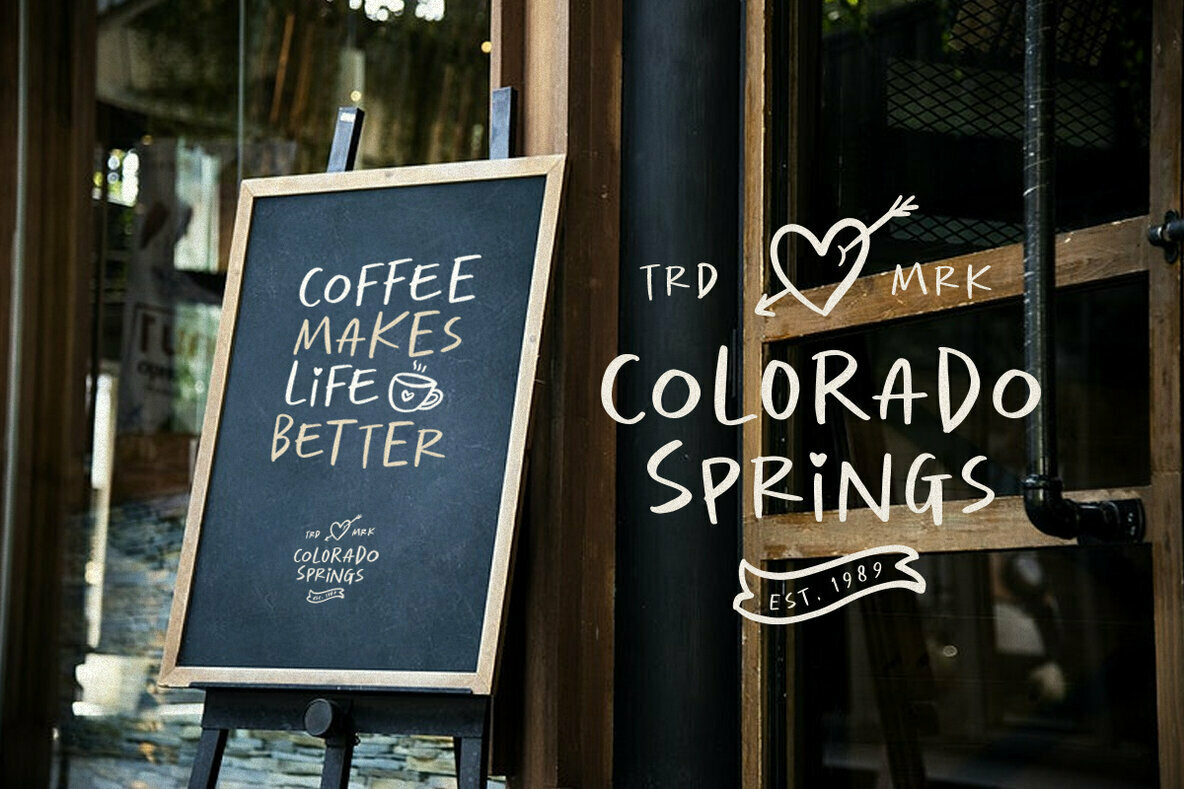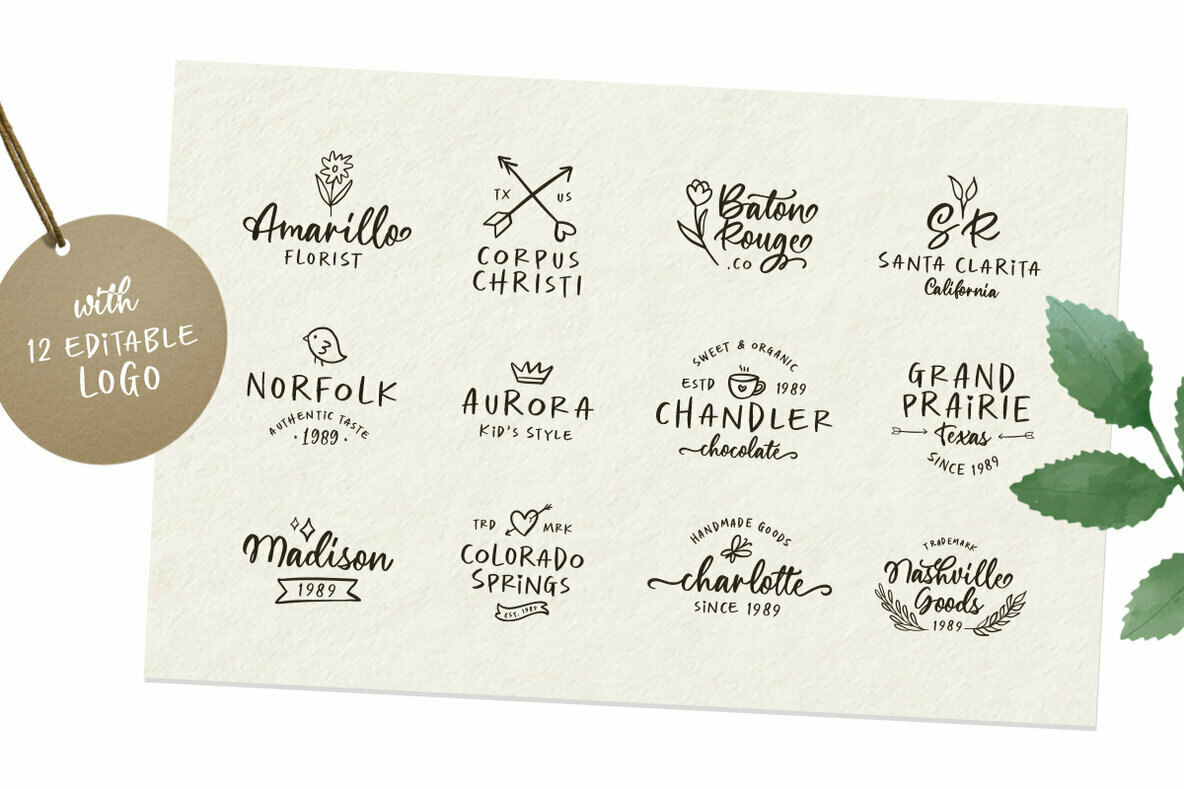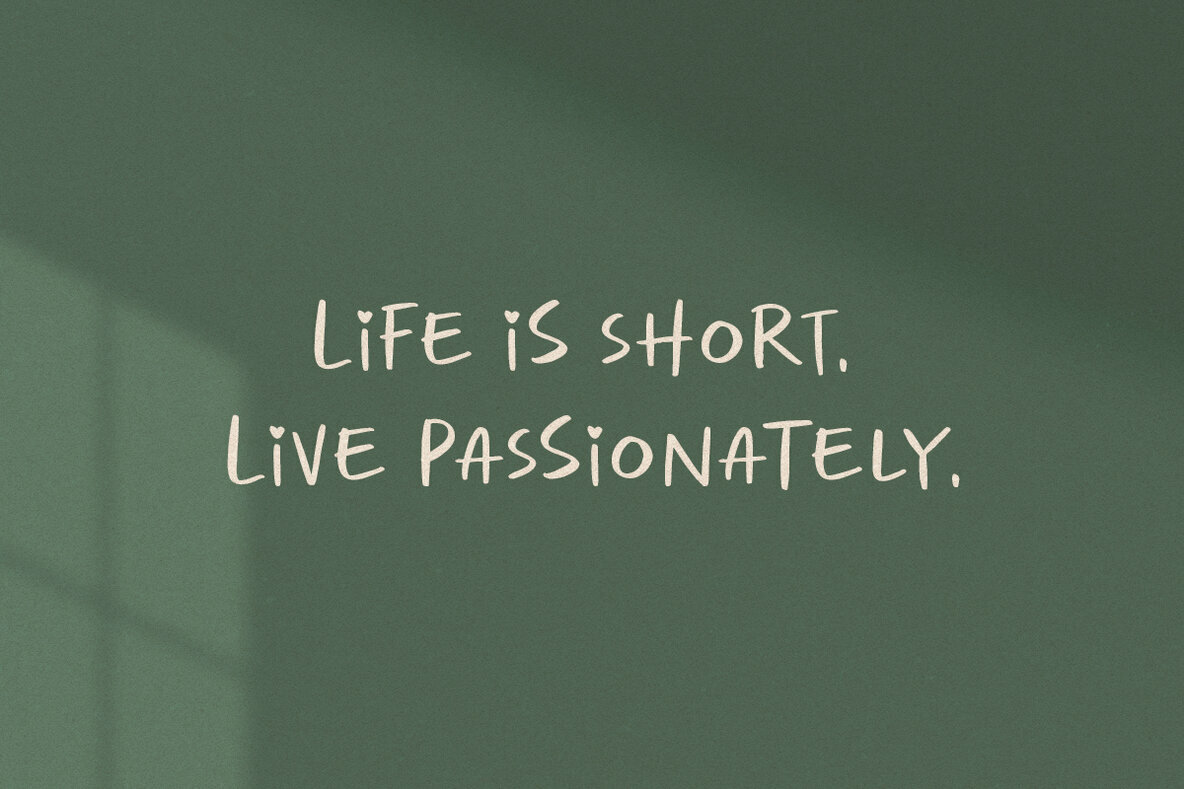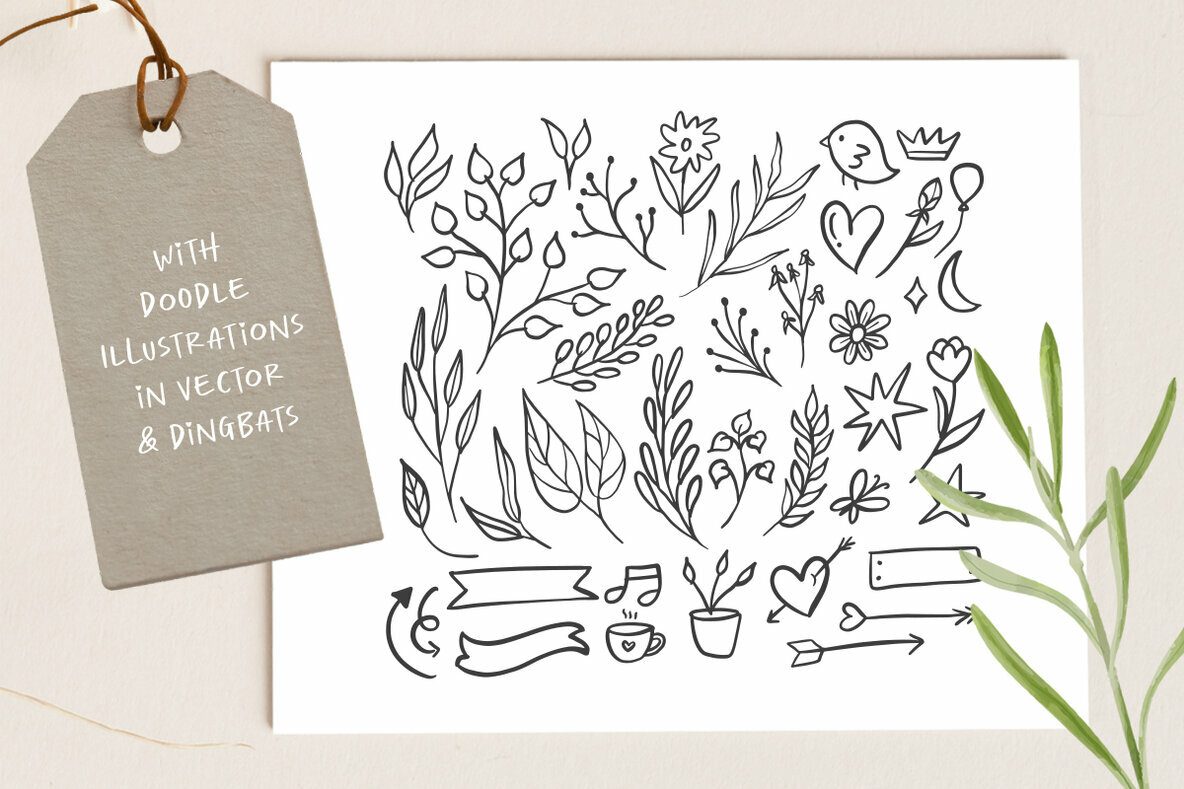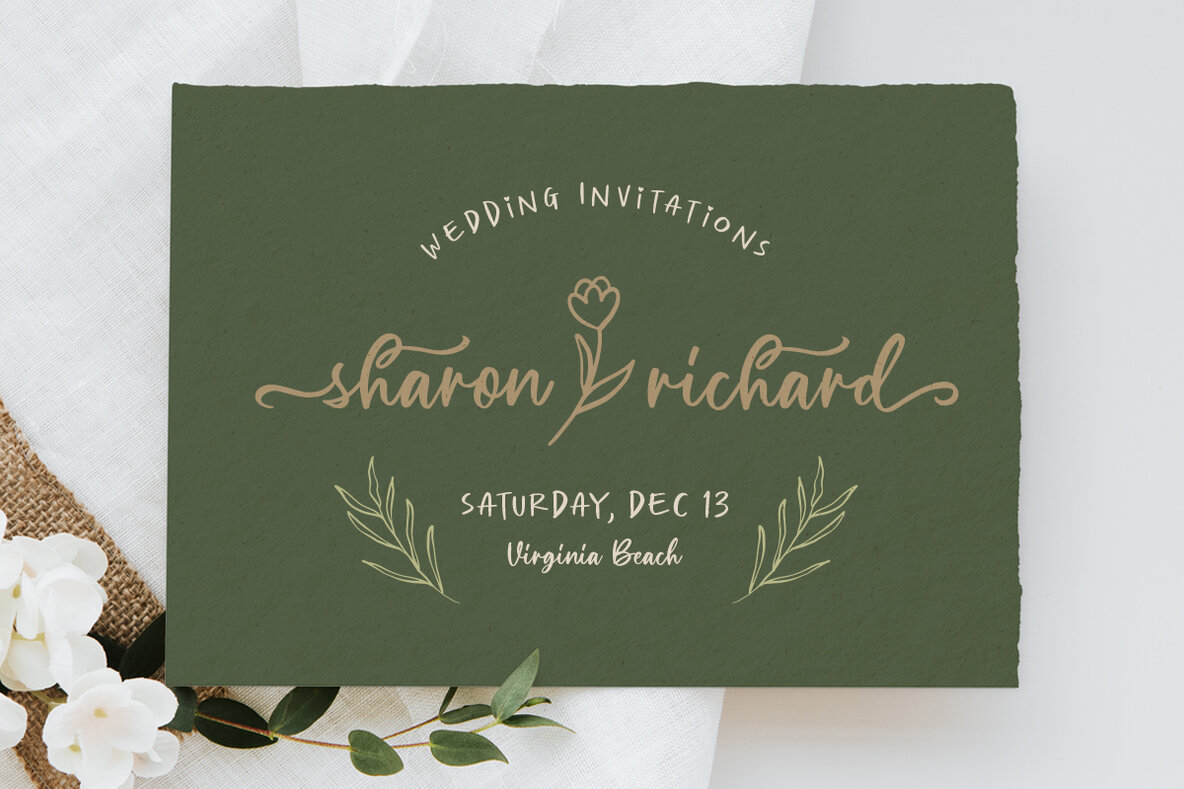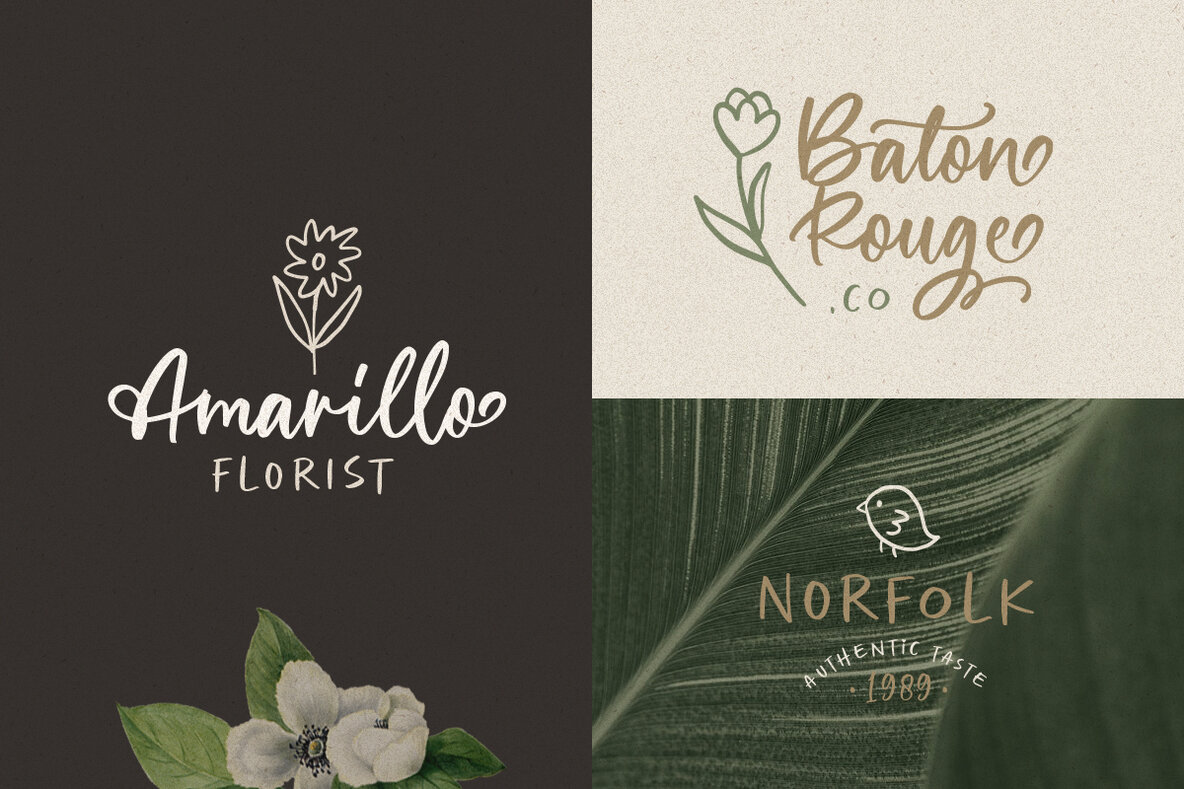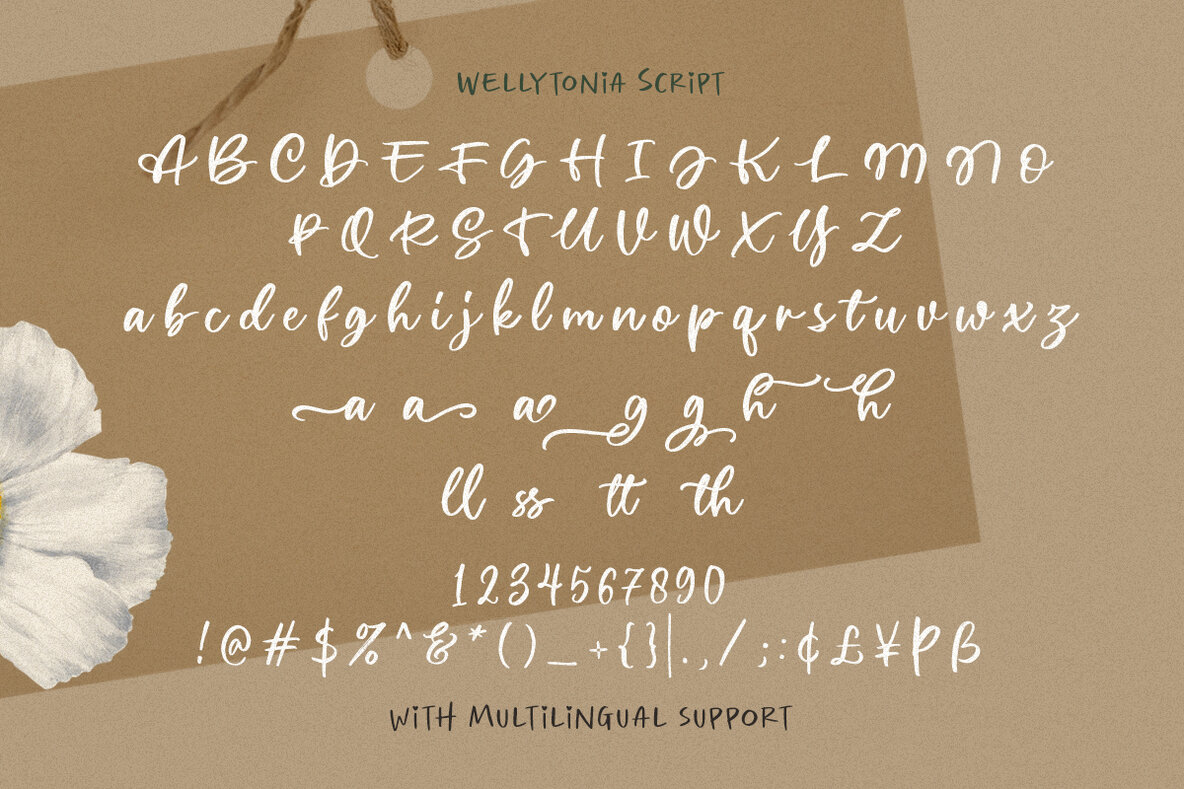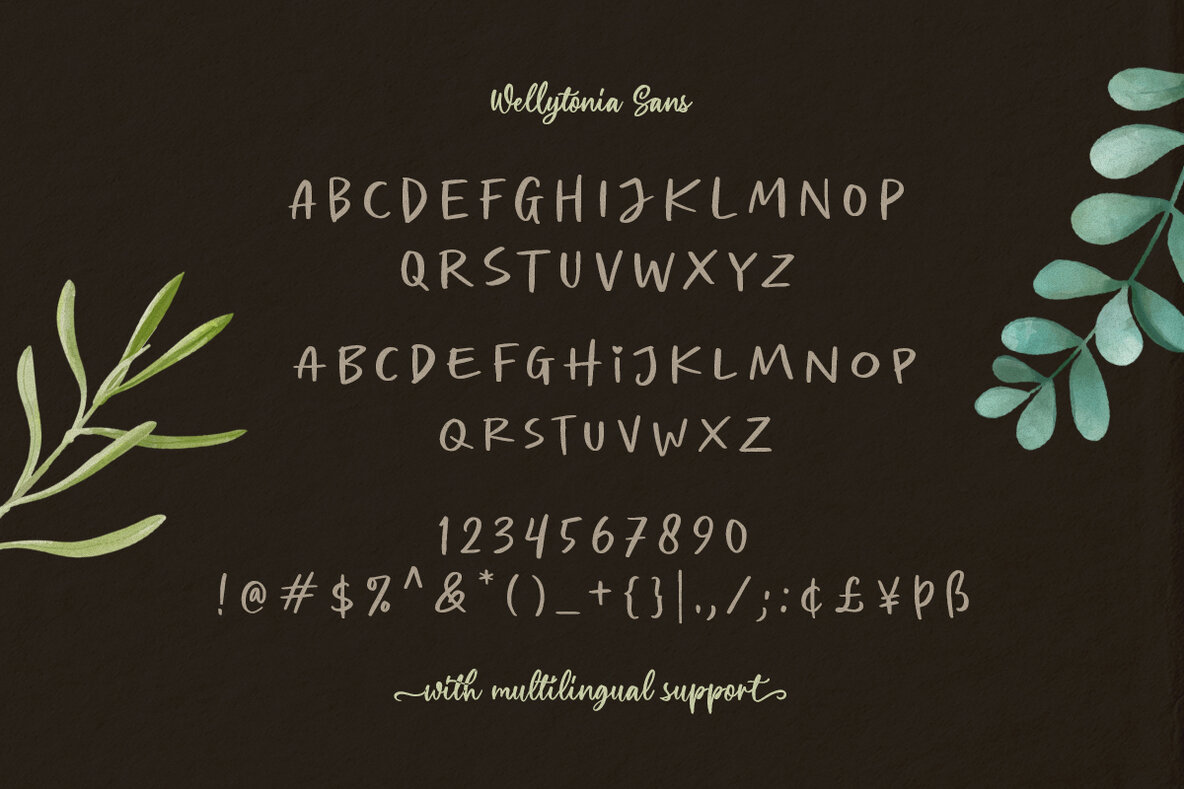
Wellytonia Package Font Trio
The Wellytonia Font Trio by Letterhend Studio is a harmonious blend of script, sans serif, and illustrative elements. Crafted with meticulous hand-drawn detail, this collection ensures a natural, organic aesthetic. It excels in brand identity applications, from logos to formal invitations, and is equally adept for use in magazines, books, greeting cards, and product packaging.Wellytonia Font Trio: Handcrafted Versatility